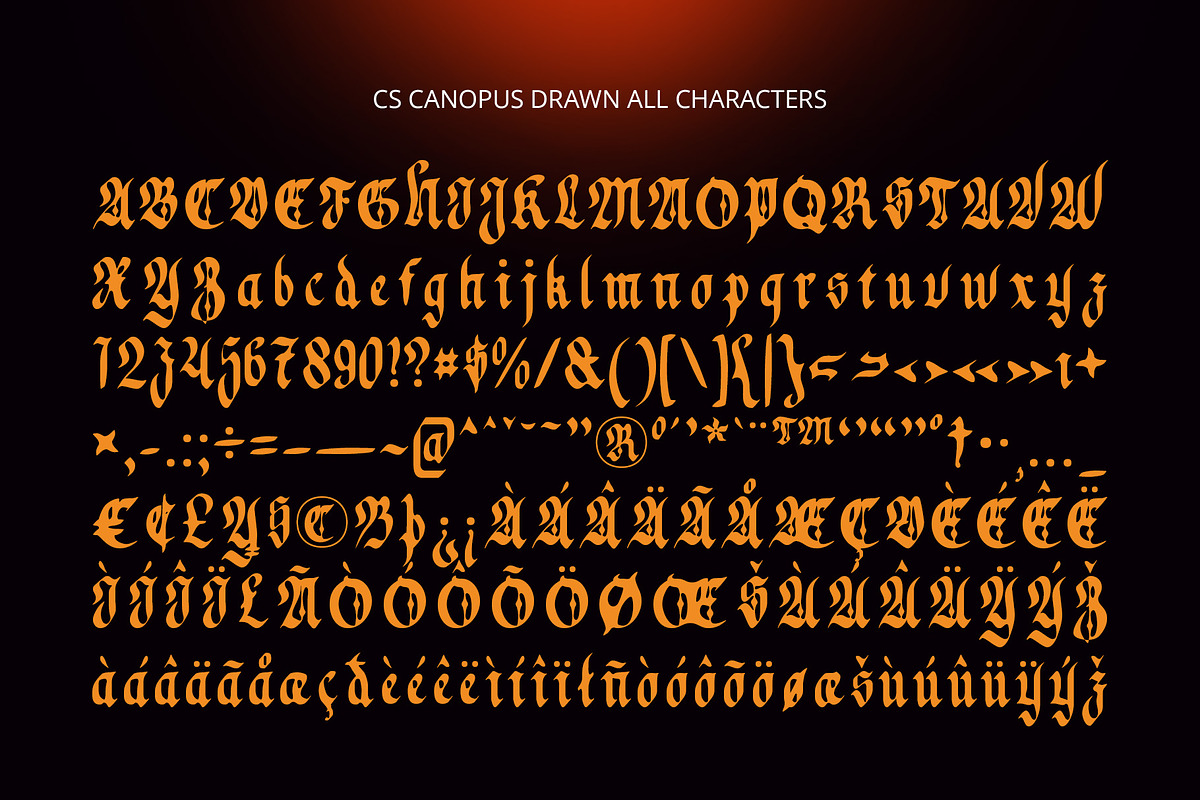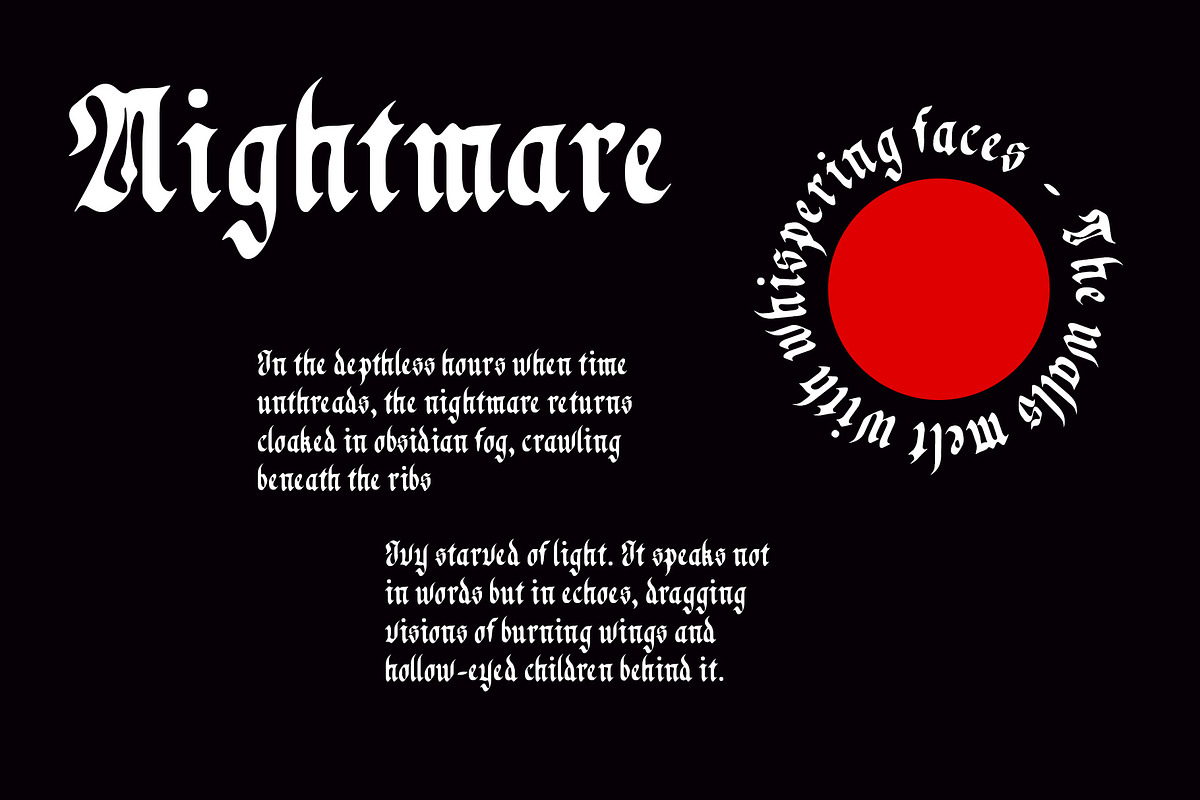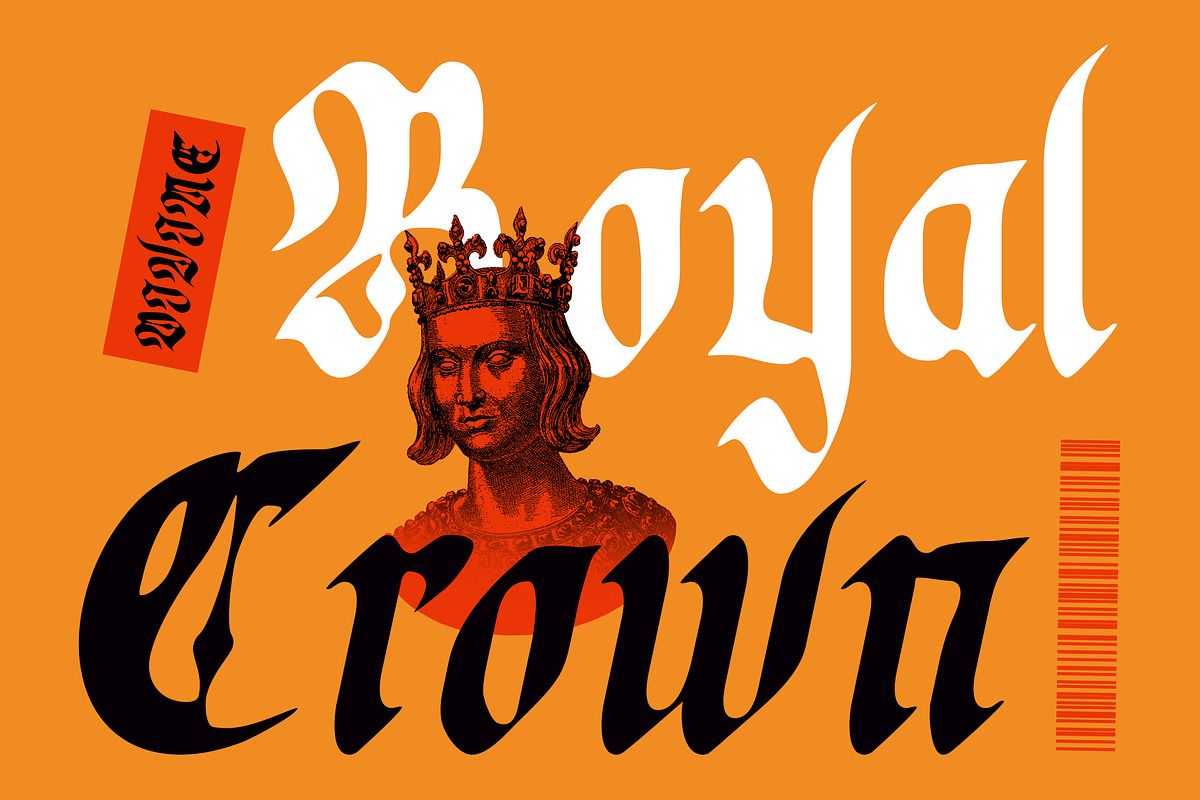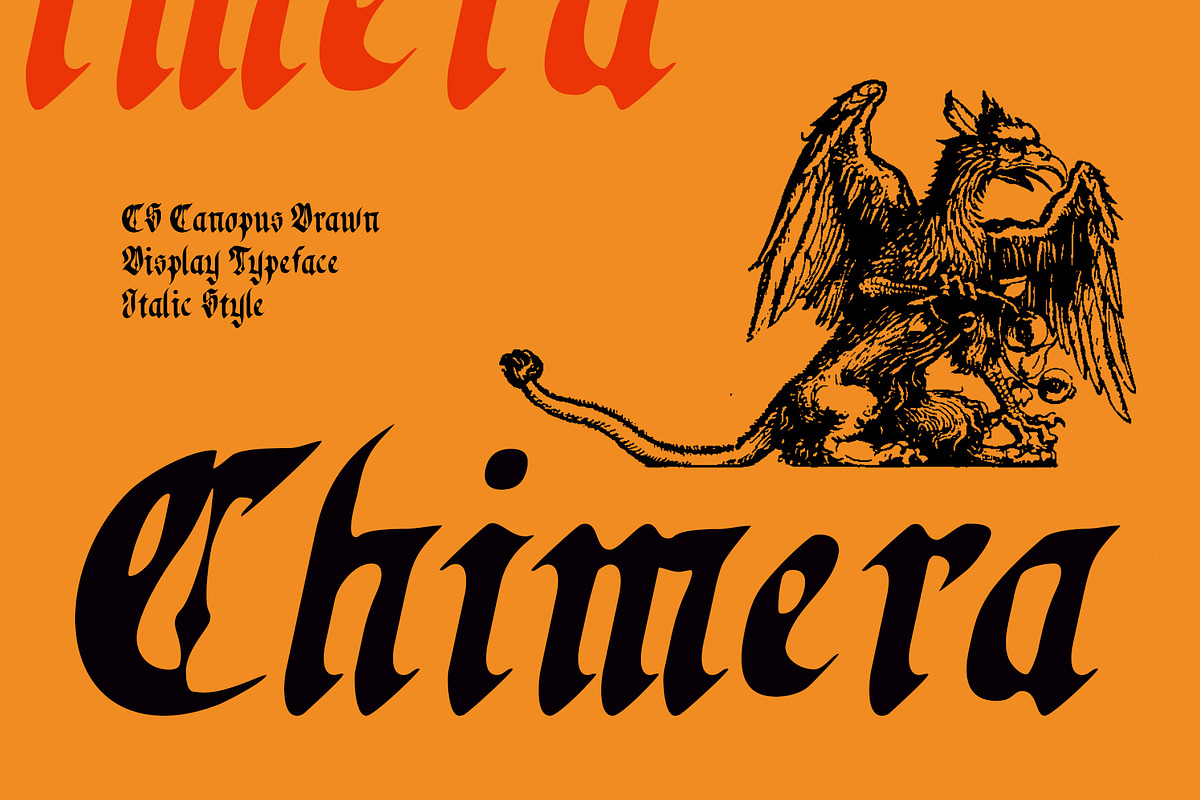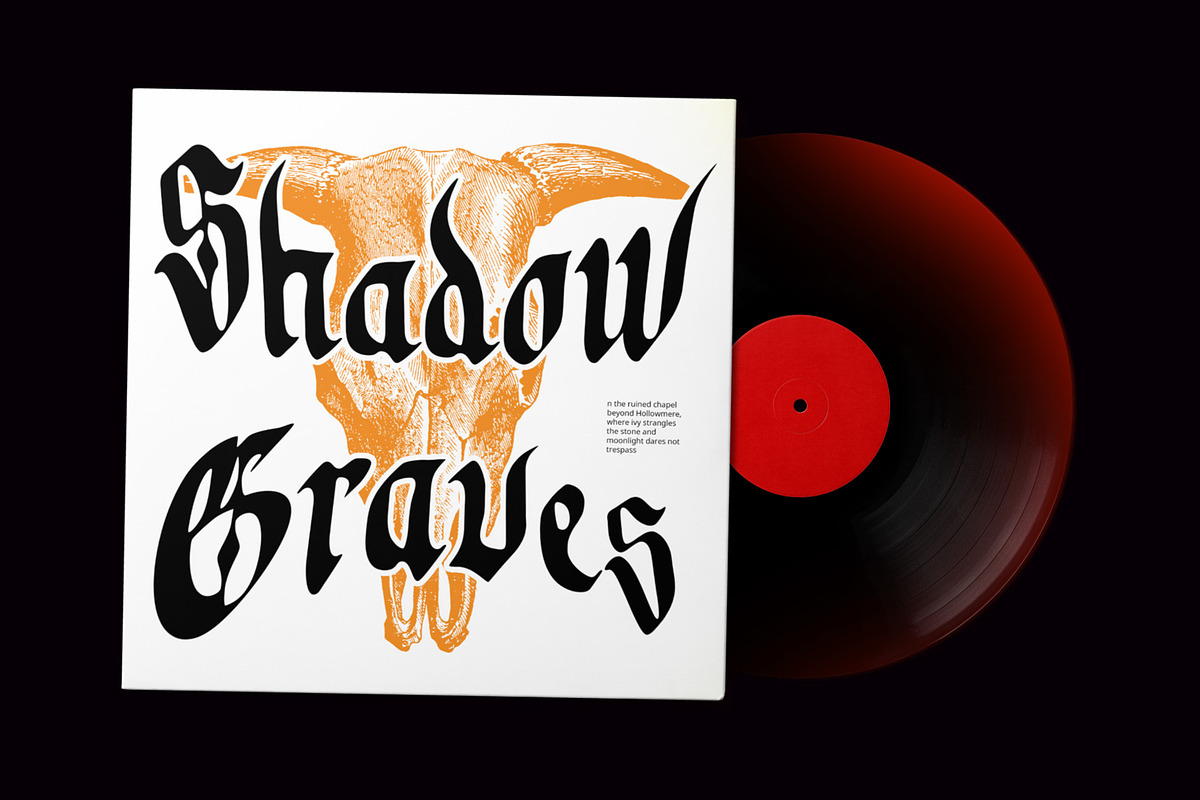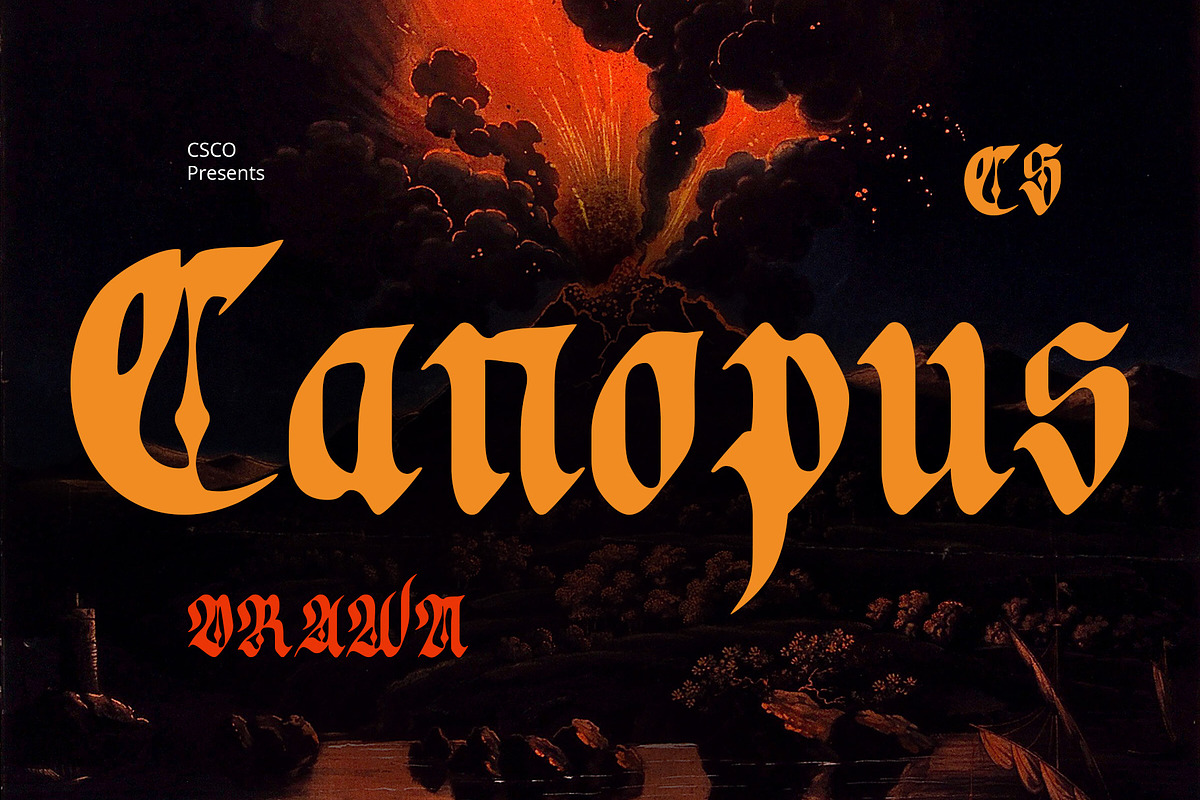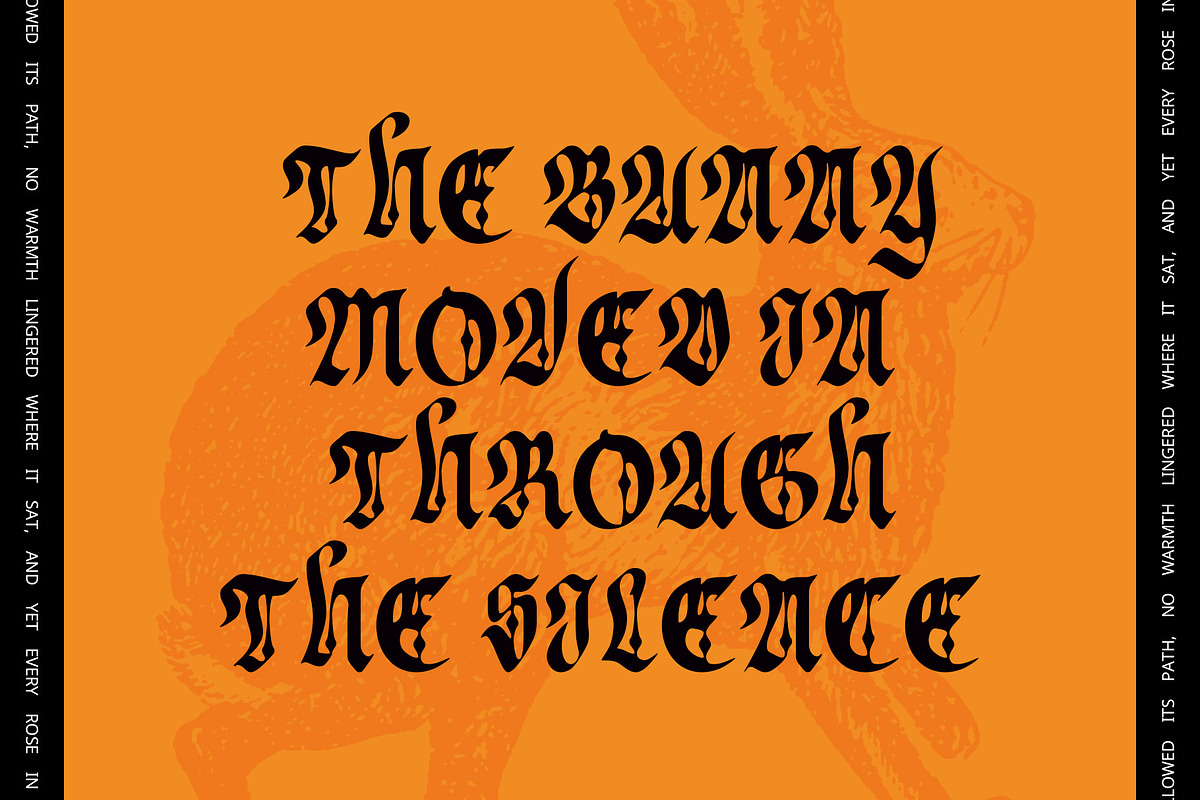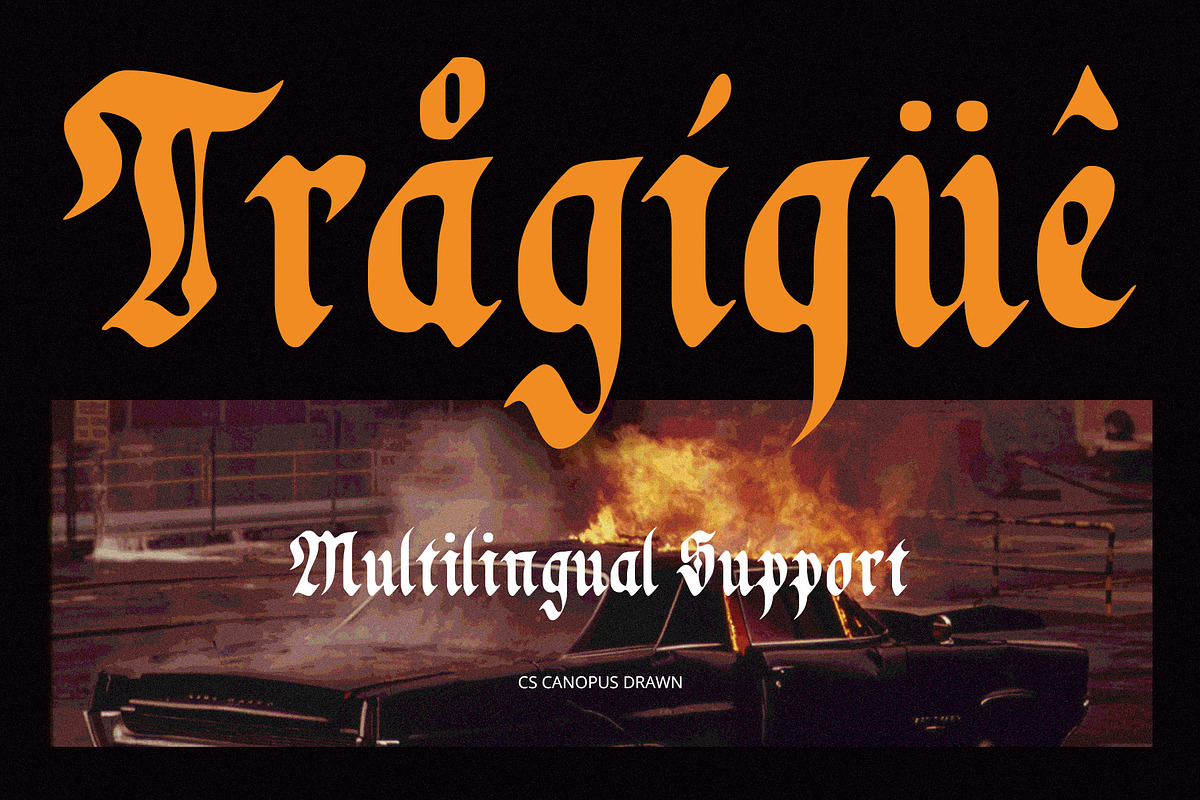
CS Canopus Drawn
CS Canopus Drawn: A Darkly Ornamental Blackletter with Handcrafted Edge
Gothic Elegance Meets Expressive Drama This is a display font that draws deeply from blackletter traditions, showcasing sharp, ornamental letterforms inspired by medieval scripts. With its dramatic flourishes and pointed terminals, it conveys a powerful sense of mystery and historical weight.
Drawn Effect for Raw Artistic Texture The drawn effect introduces a handcrafted texture that adds organic imperfection and emotional intensity. This rough, sketched aesthetic enhances the visual drama and imbues each letter with a sense of individuality—perfect for projects seeking bold, expressive character.
Evocative, Mysterious, and Emotionally Rich From its bold structure to its textured surface, this expressive font evokes a dark and emotionally rich tone. It’s the perfect font for projects that channel themes of the gothic, the occult, or the mysterious. Whether used in black-and-white compositions or vibrant contrasts, it brings a deeply expressive and symbolic voice to the design.
Perfect for Bold and Thematic Design Whether you’re creating occult-inspired visuals, extreme metal artwork, or medieval-themed graphics, this mysterious font provides a distinctive aesthetic that blends the past with artistic rebellion. Its bold form and textured depth make it a standout in any dramatic design setting.